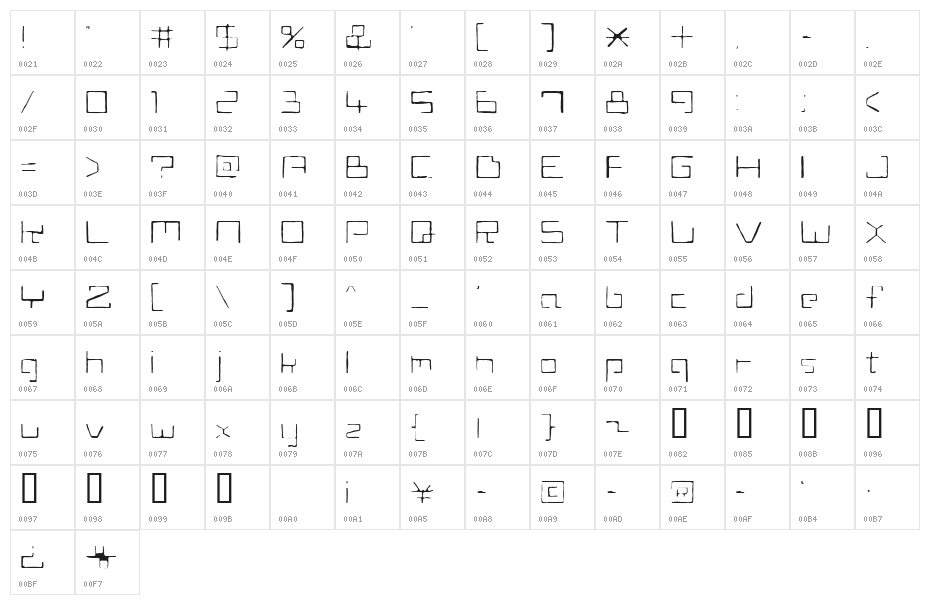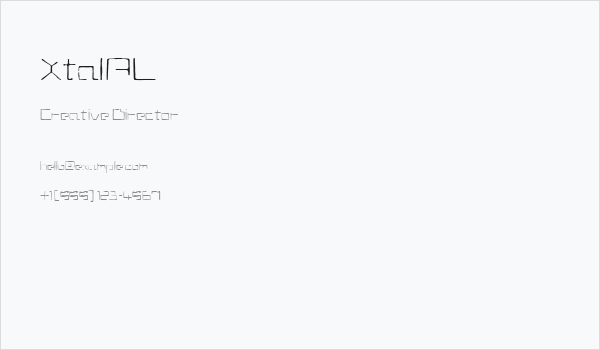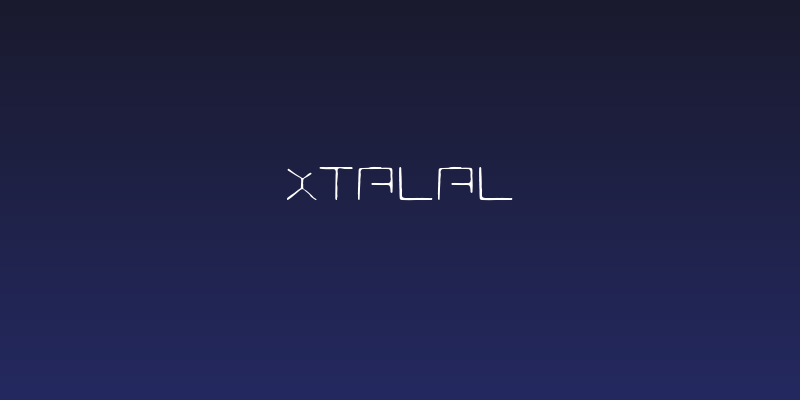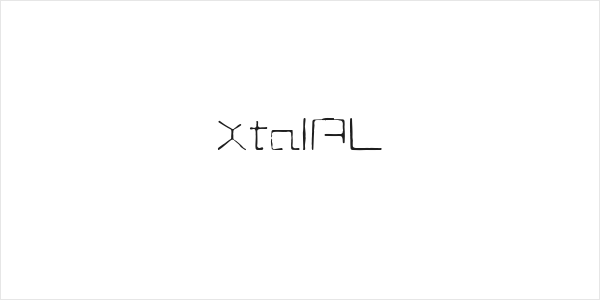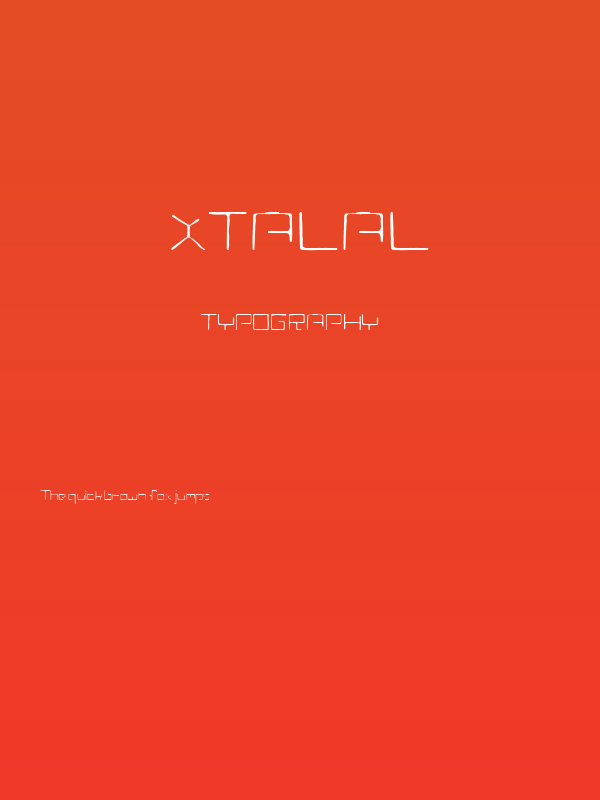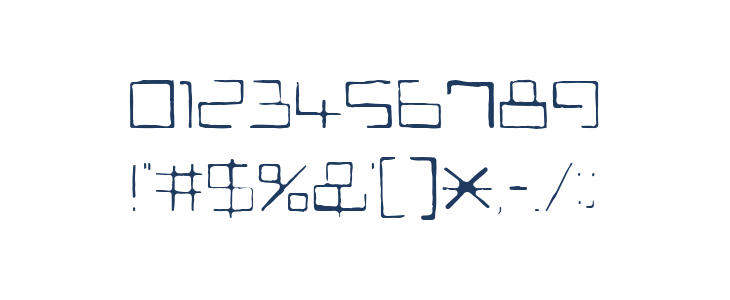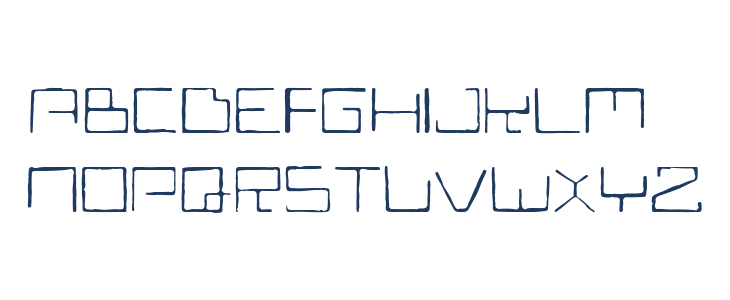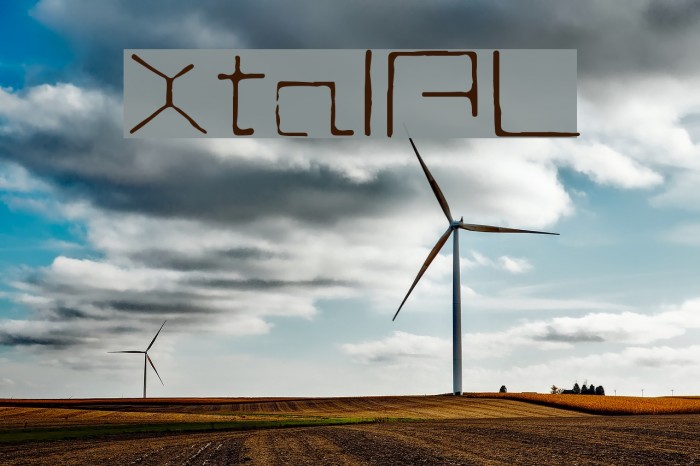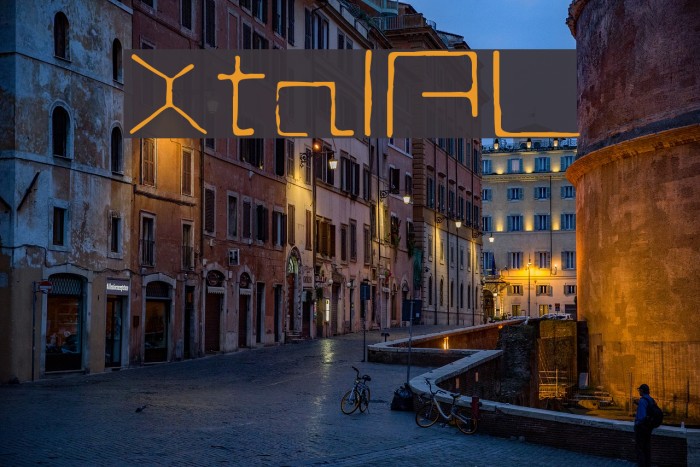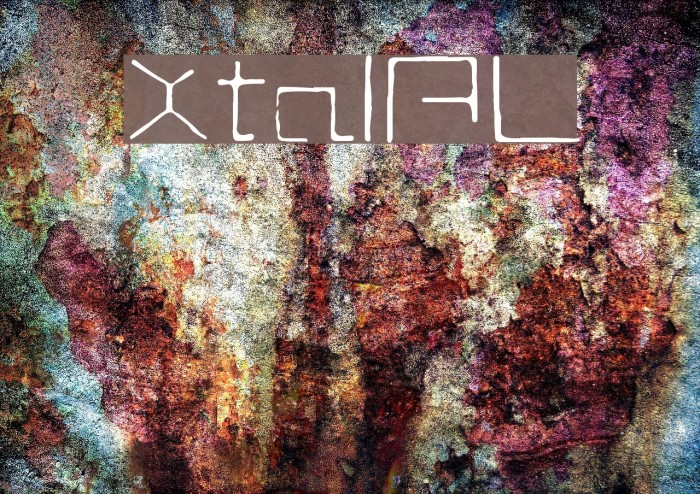
XtalAL Font
XtalAL Description
This font features a unique, modern design with a geometric and slightly futuristic aesthetic. The characters are constructed with a consistent line weight, creating a uniform appearance across both uppercase and lowercase letters. The angular and squared-off shapes give it a distinctive look, while the open counters and generous spacing enhance readability. The numerals and special characters maintain the same stylistic approach, ensuring cohesion throughout the typeface. This font's clean lines and contemporary style make it suitable for a variety of design applications.
| Overall Style | Futuristic |
| Use Case | Logos, Headlines, Digital Interfaces |
| Proposed Projects | Ideal for tech branding, digital interfaces, modern posters, and innovative product packaging. |